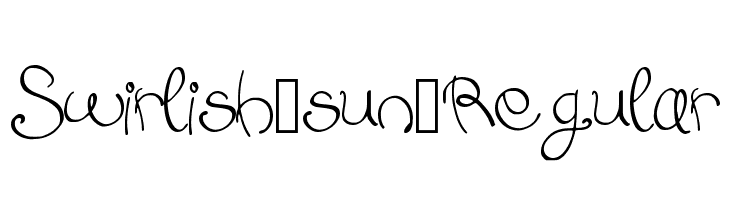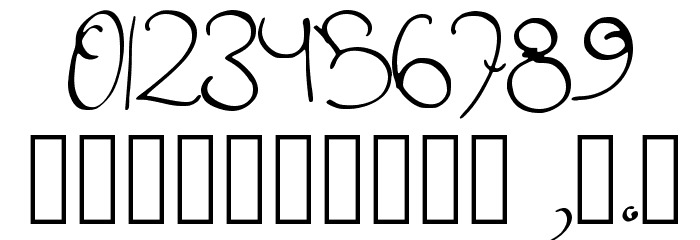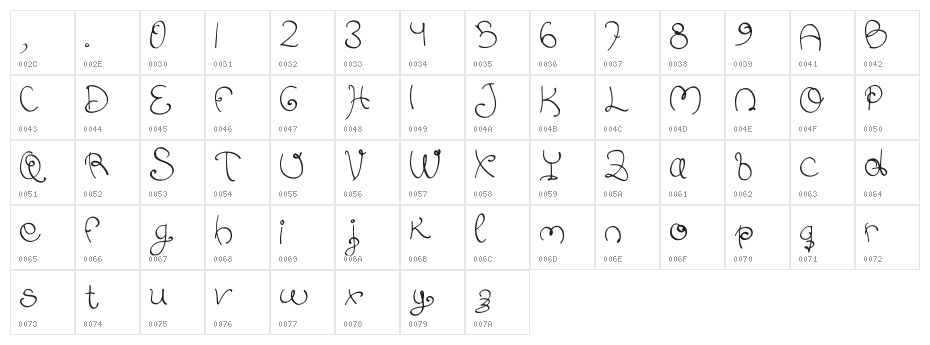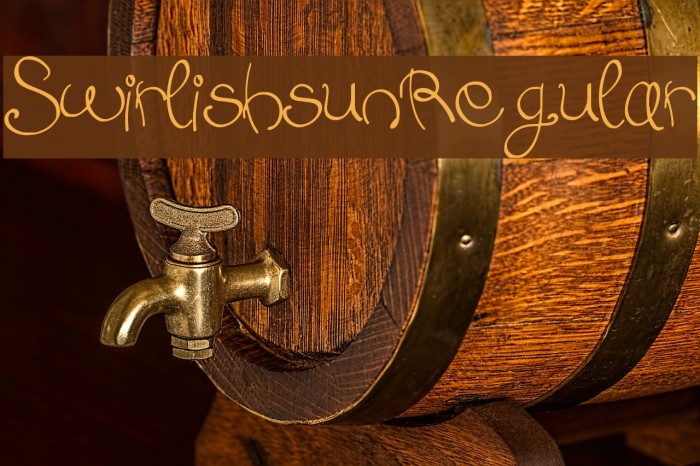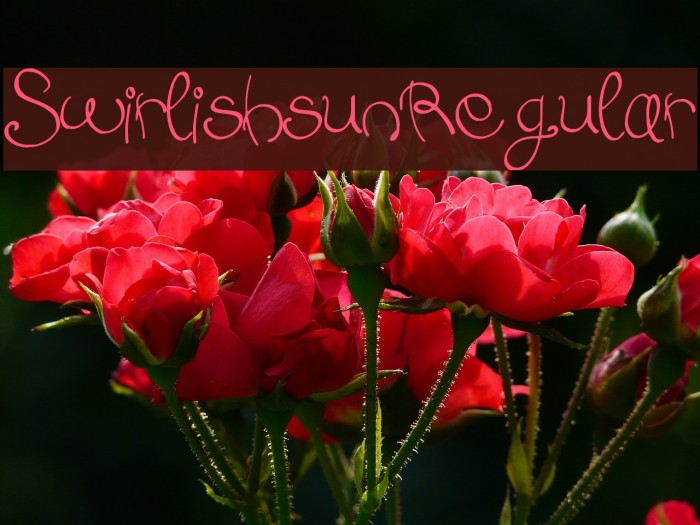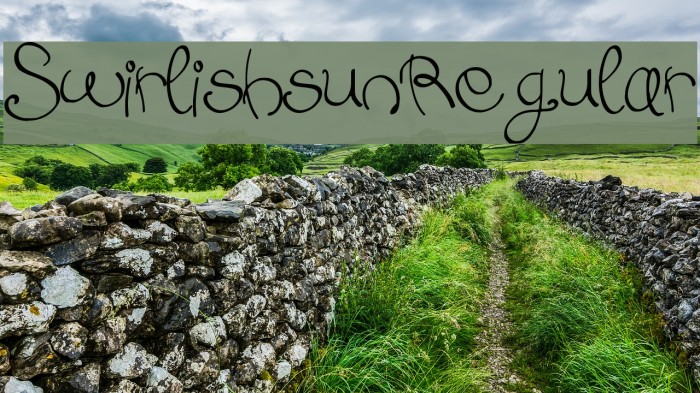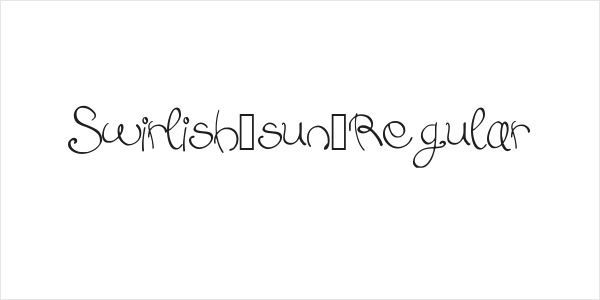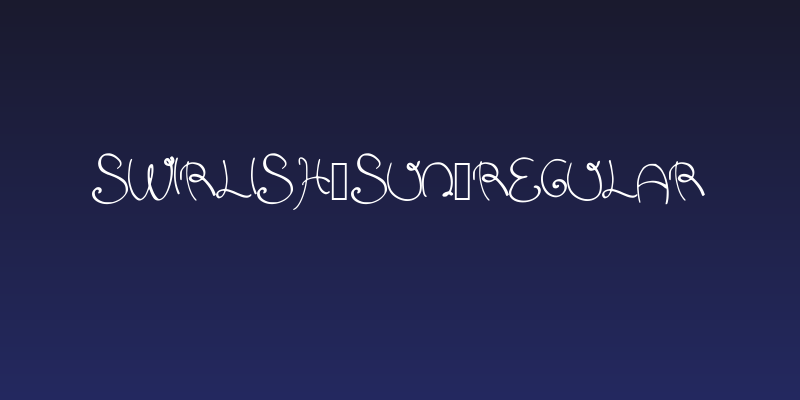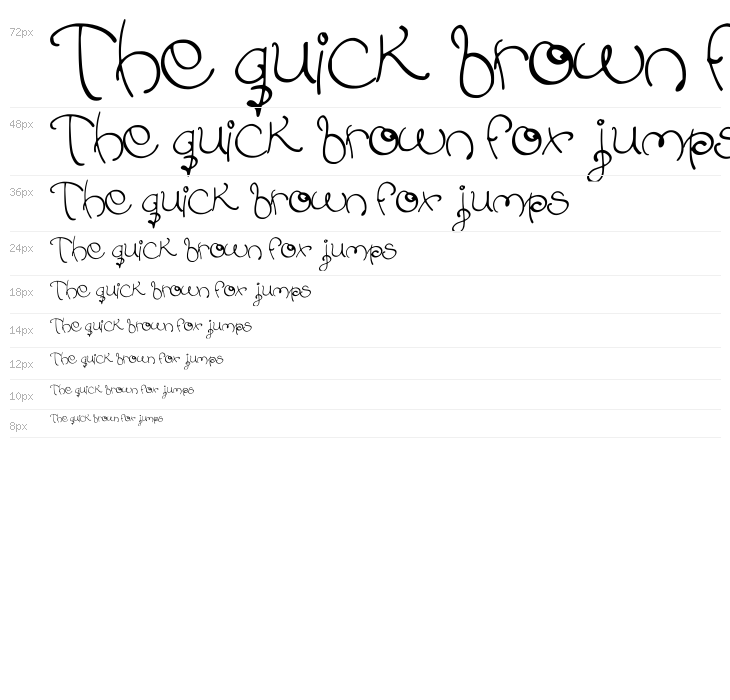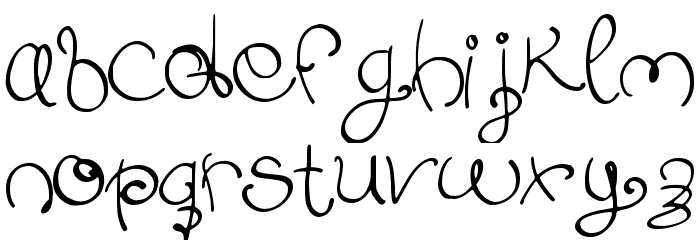
Swirlish_sun_Regular Font
Swirlish_sun_Regular Description
This font features a whimsical and decorative style with swirling, playful curves that give it a unique and artistic flair. The characters are designed with a sense of movement and fluidity, incorporating loops and curls that add to its charm. The uppercase and lowercase letters maintain a consistent style, with the uppercase being slightly more elaborate. Numbers and special characters follow the same decorative theme, making the font cohesive throughout. It is ideal for projects that require a touch of creativity and elegance, such as invitations, greeting cards, or artistic branding.
| Use Case | Headlines, Artistic projects, Invitations |
| Proposed Projects | Ideal for invitations, greeting cards, artistic branding, and creative projects. |